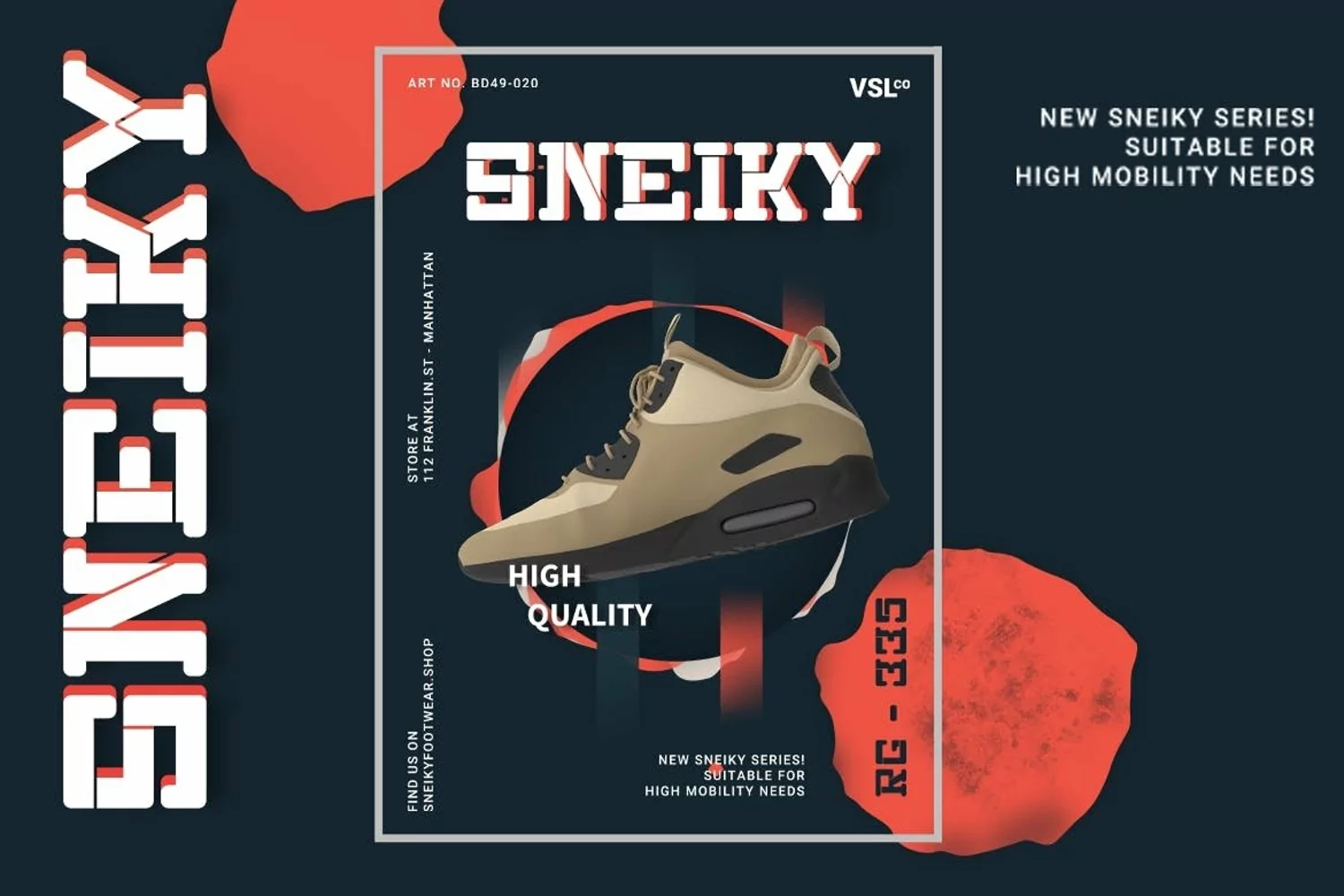
MATRIX ZONE modern font comes with high tech look with a modern cut-out style, represent an automatic and highly crafted technology for all of us.
Perfect for high-tech and space related article headline, science fiction, technology expo poster, print material, infographics, etc.
The uppercase has an open connection model, while the lowercase have a close version.